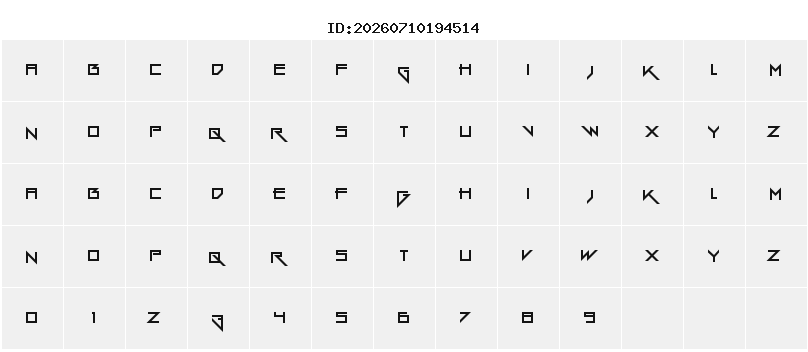
• Font Name: Gang Wolfik
• Full Font Name: Gang Wolfik Regular
• Designer: NAL
• Description: “Gang Wolfik” was built with FontStruct
About Gang Wolfik.ttf
Gang Wolfik.ttf is a modern, elegant sans-serif font designed for ultimate readability and visual harmony. Perfect for branding, headlines, web design, and print materials.